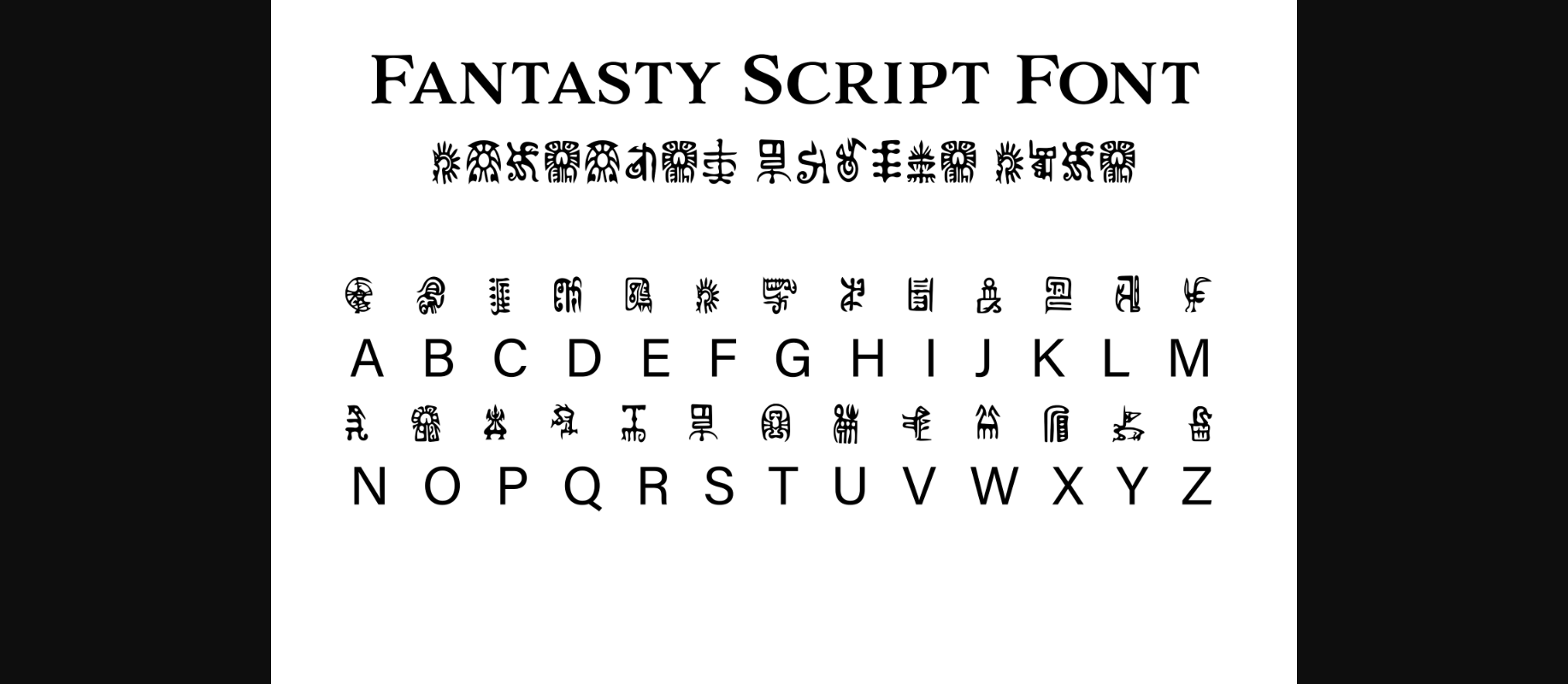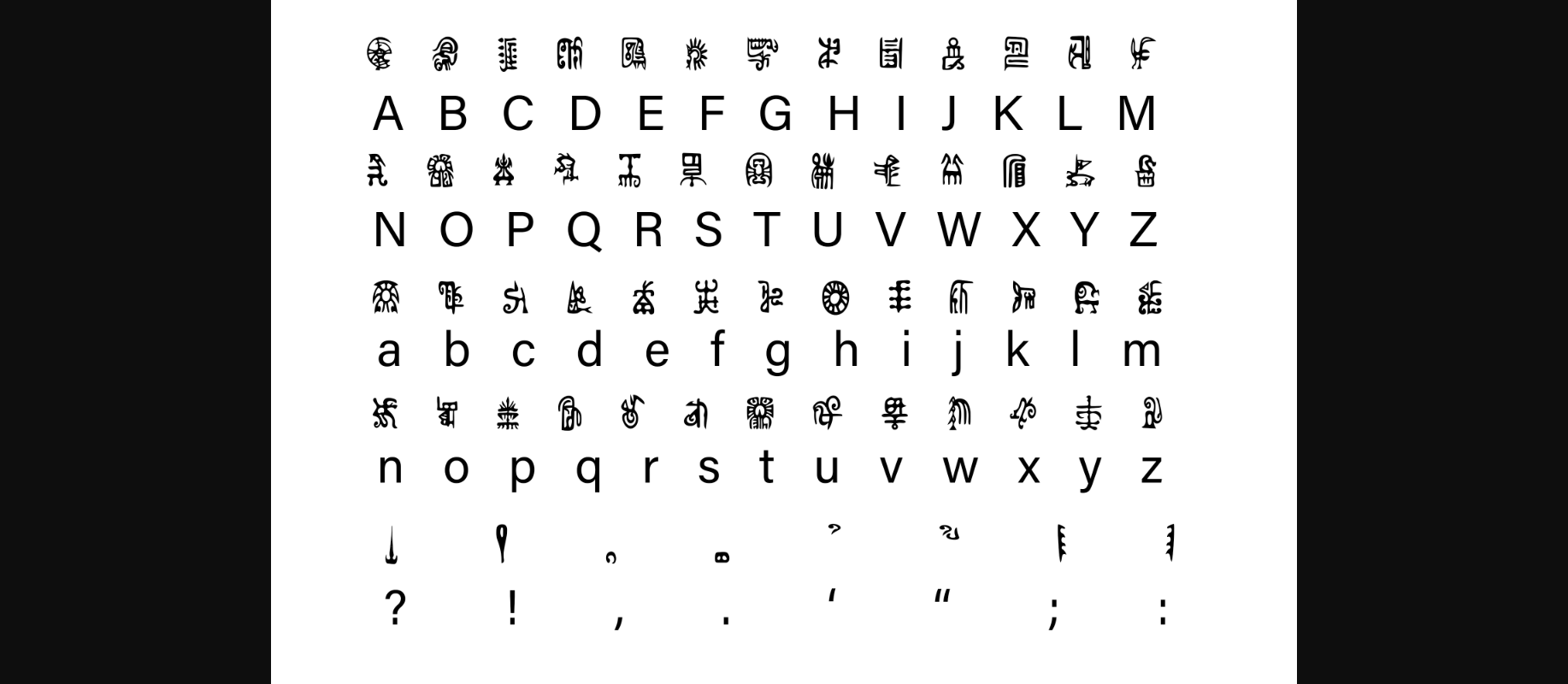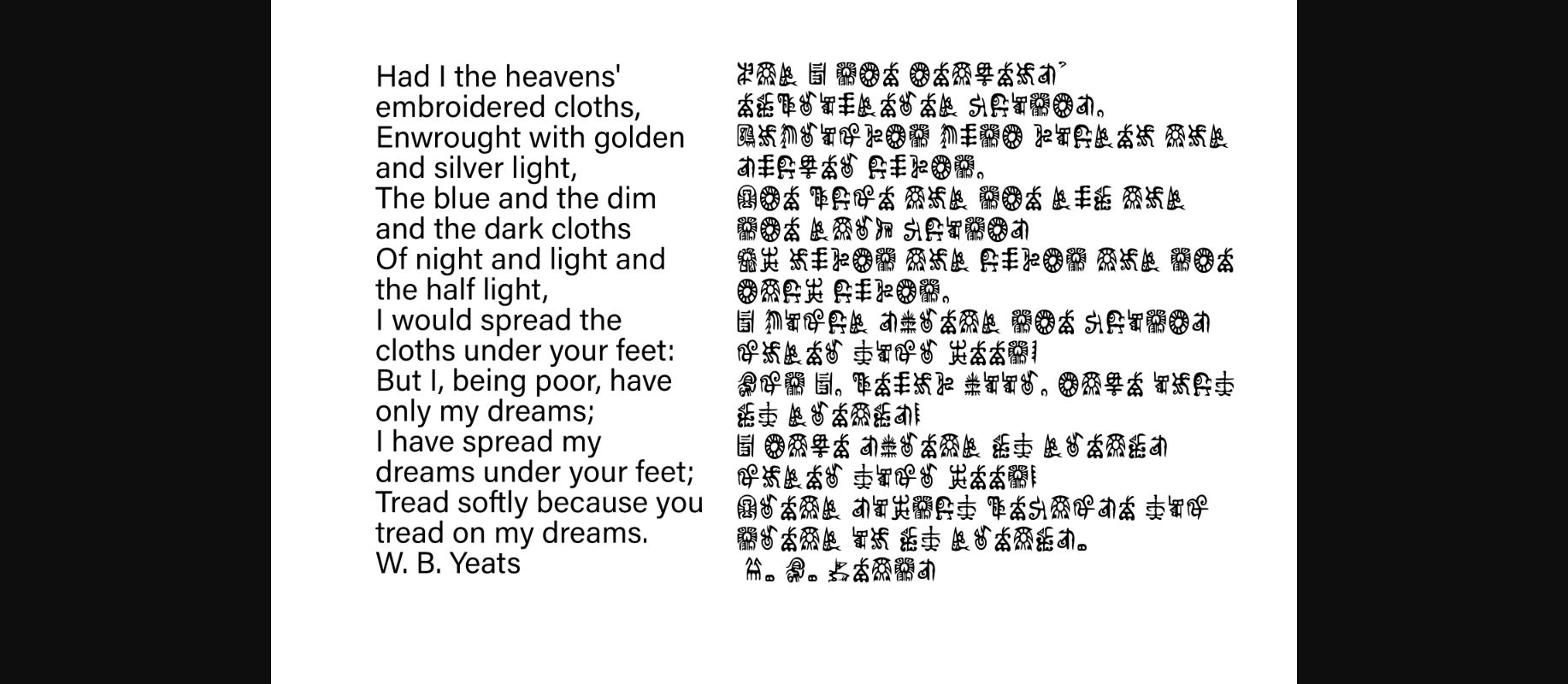
HomeDecorative FontsFantasy Script 12 Font Decorative Fonts Fantasy Script 12 Font FacebookXPinterestWhatsApp 1 of 5 ... Fantasy Script 12 Font Poster 2... Fantasy Script 12 Font Poster 3... Fantasy Script 12 Font Poster 4... Fantasy Script 12 Font Poster 5... About Fantasy Script 12 Font Fantasy is perfect for your next Dungeons and Dragons campaign, fantasy LARP adventure, novel, or whatever else you’re working on! This font includes the standard English alphabet and basic punctuation. DOWNLOAD NOW People also explored Hellermat Font Charming Ornate Font Dylan Font Paterson Nolan Font Hinadati Font Modecque Font Quantum Melody Font Mandala Handmade Font Robert Font 335 0 TagsFantasy Script 12 Font Previous articleFantasy Script 11 FontNext articleFantasy Script 13 Font LEAVE A REPLY Cancel reply Comment: Please enter your comment! Name:* Please enter your name here Email:* You have entered an incorrect email address! Please enter your email address here Website: Save my name, email, and website in this browser for the next time I comment. Personal Use Free Edo SZ Personal Use Free Read more about this font Ennobled Pet Personal Use Free Read more about this font Uchiyama Personal Use Free Read more about this font Sui Genesis Personal Use Free Read more about this font BLOG Free Fonts Risk: Why Free Fonts Can Be Dangerous for Designers Free Fonts Risk: Why Free Fonts Can Be Dangerous for Designers Using free fonts is a common practice in web and graphic design. However, the... Best Fonts for YouTube Videos: Make Your Thumbnails Stand Out The 10 Best Handwriting Fonts to Add Personality to Your Designs 5 Fonts That Will Dominate Design Trends in 2026